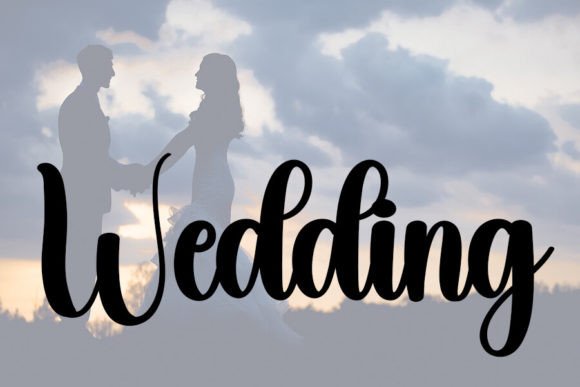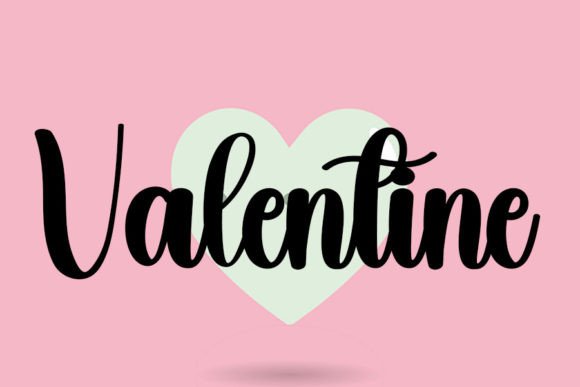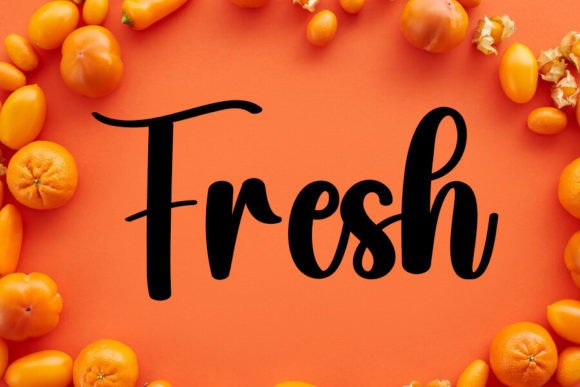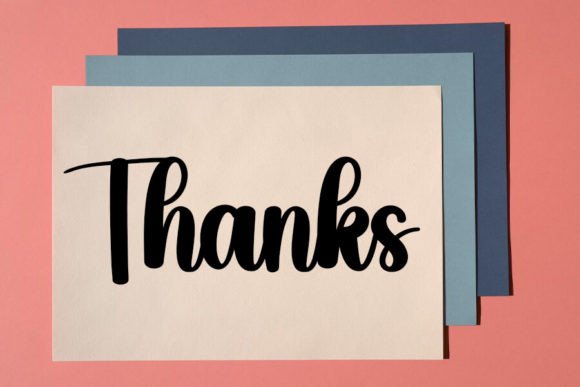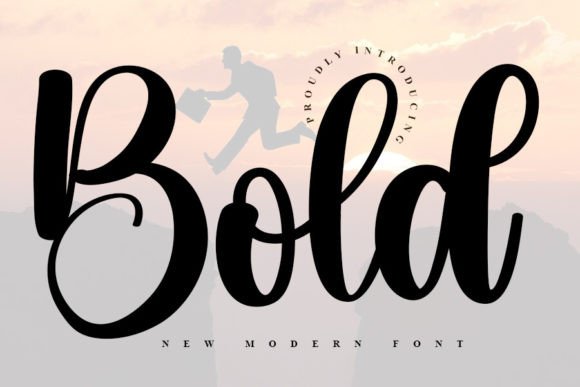
Introducing Bold Font: Elevate Your Designs with Elegance and Timeless Style
Are you on the hunt for a font that adds a touch of sophistication and elegance to your designs? Look no further than Bold Font, a stunning handwritten font that is sure to capture your heart. With its unique and timeless style, Bold Font is the perfect choice for designers and crafters looking to create spectacular designs that stand out from the crowd.
What Makes Bold Font So Special?
Bold Font is a beautifully crafted handwritten font that boasts an elegant touch, making it perfect for a wide range of projects. Whether you’re working on a logo, branding materials, social media graphics, or even a website, Bold Font is sure to bring a level of sophistication and refinement to your designs. Its incredibly distinct style is sure to grab attention and leave a lasting impression on your audience.
Key Features of Bold Font
- Handwritten with love: Bold Font is a carefully crafted handwritten font, giving it a personal and unique touch that sets it apart from more traditional fonts.
- Elegant and refined: With its smooth lines and flowing curves, Bold Font exudes elegance and sophistication, making it perfect for designs that require a high level of refinement.
- Timeless style: Unlike trendy fonts that quickly go out of style, Bold Font has a timeless quality that ensures it will remain relevant for years to come.
- Versatile: Bold Font is incredibly versatile, making it suitable for a wide range of projects, from logos and branding materials to social media graphics and websites.
Why Choose Bold Font?
So, why should you choose Bold Font for your next project? Here are just a few compelling reasons:
- Stand out from the crowd: With its unique and distinctive style, Bold Font is sure to help your designs stand out from the crowd and grab attention.
- Convey elegance and sophistication: Whether you’re working on a luxury brand or a high-end product, Bold Font is the perfect choice for conveying elegance and sophistication.
- Easy to read: Despite its bold and elegant style, Bold Font is incredibly easy to read, making it perfect for designs that require a clear and concise message.
Tips for Using Bold Font
To get the most out of Bold Font, here are a few tips to keep in mind:
- Use it sparingly: While Bold Font is incredibly elegant and refined, it can be overwhelming if used too much. Use it sparingly to add emphasis and create visual interest.
- Pair it with complementary fonts: To create a truly stunning design, pair Bold Font with complementary fonts that add contrast and visual interest.
- Experiment with different colors: Bold Font looks amazing in a range of colors, so don’t be afraid to experiment and find the perfect hue for your design.
In conclusion, Bold Font is a truly exceptional handwritten font that is sure to elevate your designs to new heights. With its elegant touch, timeless style, and versatility, it’s the perfect choice for designers and crafters looking to create spectacular designs. So why wait? Fall in love with Bold Font and start creating stunning designs that leave a lasting impression!